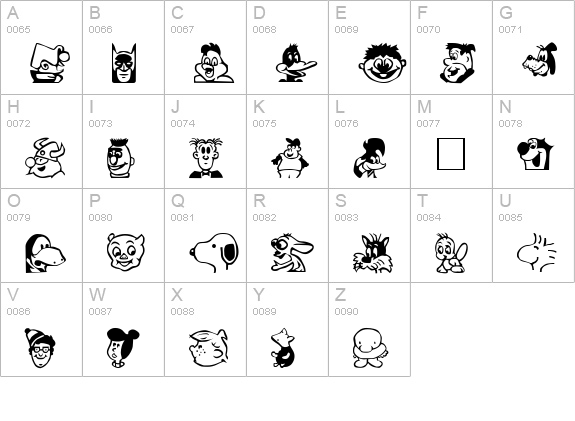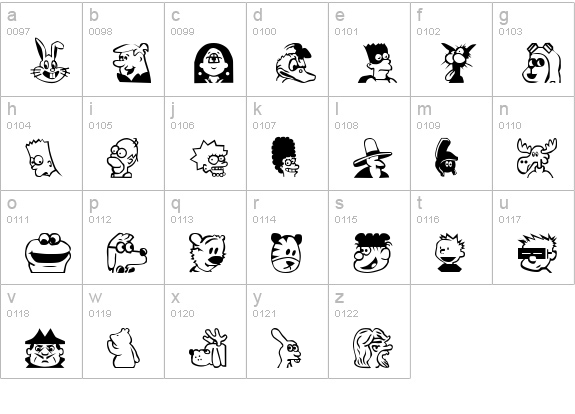
Toon Plain font is a delightful and playful typeface that is sure to bring a touch of whimsy to your designs. With its rounded edges and charming curves, this font exudes a sense of friendliness and approachability. Perfect for a variety of creative projects, Toon Plain font is ideal for anything from children's books and posters to logos and social media graphics. Its versatile nature allows it to seamlessly blend into various design styles, making it a go-to choice for designers of all levels. One of the standout features of Toon Plain font is its ability to evoke a sense of fun and lightheartedness. Each letter has been carefully crafted to create a harmonious and visually pleasing aesthetic. The slightly exaggerated proportions add to its playful appeal, making it a standout choice for any project that requires a touch of whimsy. And the best part? Toon Plain font is absolutely free! That's right, you can easily download this font for free at FontsMarket.com. It's a fantastic opportunity to add a touch of charm to your designs without breaking the bank. So why wait? Download Toon Plain font today and let your creativity soar. Whether you're designing for a children's book, a brand logo, or simply want to inject some fun into your next project, this font is sure to bring a smile to your face. Don't miss out on the chance to freely access this delightful typeface at FontsMarket.com.